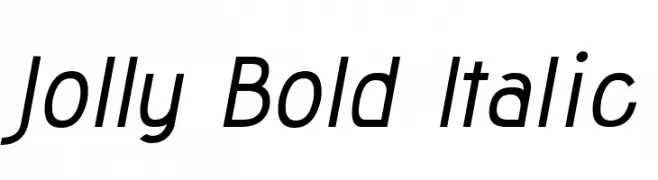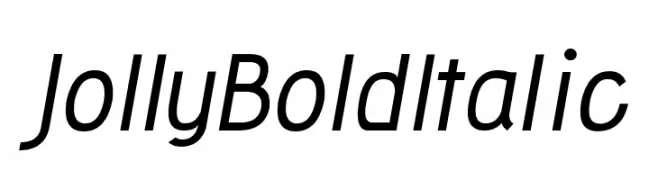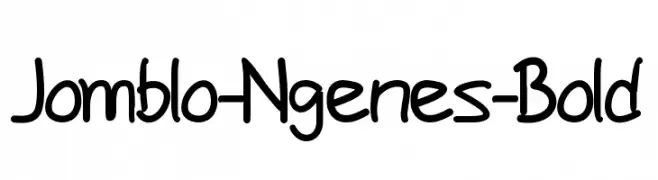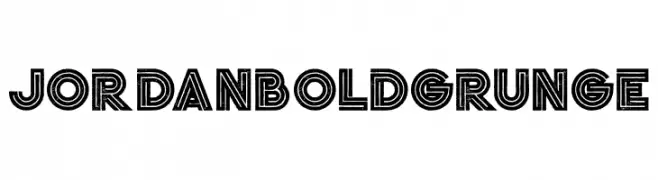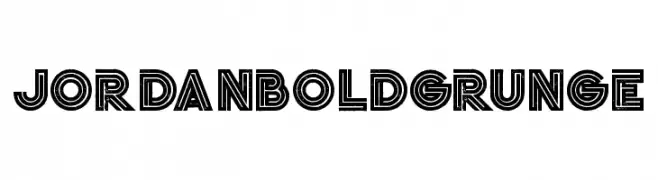
A bold, italic font with a modern and elegant slant.
Bold, italicized sans-serif font with a modern and dynamic style.
A bold, festive font with Santa illustrations on each letter.
A playful, knitted-style font perfect for festive and cozy designs.
A bold, playful handwritten font with rounded edges and a casual style.
A bold, playful font with exaggerated strokes and whimsical curves.
A bold, playful font with a cartoonish, dynamic style.
A bold, grunge-style font with a distressed, textured appearance.
A bold, grunge-style font with a distressed texture, perfect for vintage or edgy designs.